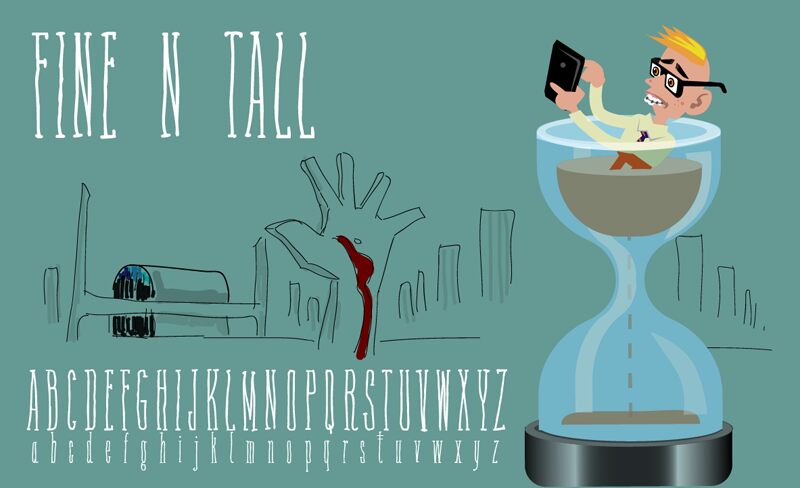
Fine N Tall by Galdino Otten is a free handwritten display font with towering, slender letters and a loose inked finish. Its shifting stroke widths and uneven shapes keep the narrow silhouette lively.
Spindly character drawings and tall architectural sketches are natural companions in poster art. The same look suits fashion editorials, music packaging, and offbeat event graphics. Across these settings, the elongated wording can become part of the illustration rather than a neutral caption.